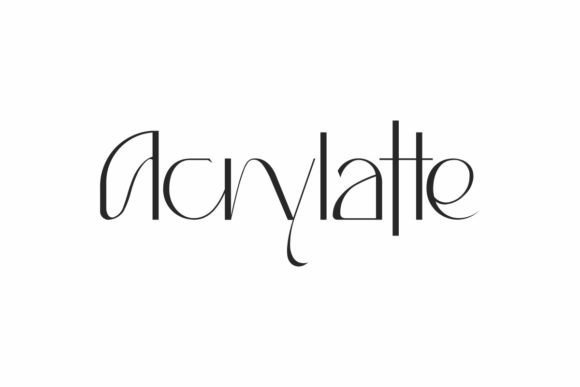
The Perfect Blend of Luxury and Legibility: Introducing Acrylatte Font
There’s something magical about stumbling upon the perfect font to bring your design to life. For me, it’s like the moment when all the puzzle pieces fall into place, and the creativity flows. You know that feeling when you’re about to create something truly special, and the right font is the missing piece of the equation? That’s exactly what happens when you discover Acrylatte Font, a modern display font that exudes luxury and sophistication.
Created by NihStudio, Acrylatte Font is designed to make a statement while still being easy to read. With its unique line wave and clean look, this font is perfect for a wide range of industries, from boutique and cosmetic to fashion and restaurant. Whether you’re designing a brand logo, magazine catalog, or product packaging, Acrylatte Font is sure to elevate your project to the next level.
Acrylatte Font Key Features
- Font Family: Acrylatte Font comes in a single font family, designed to provide a unique and modern look.
- Character Set: Includes a wide range of characters, including uppercase and lowercase letters, numbers, and special characters, making it suitable for various applications.
- Size: The font family includes multiple weights and styles, ranging from Extra Light to Extra Bold, allowing for flexibility in design and layout.
- Unique Characteristics: Acrylatte Font features a unique blend of geometric and organic shapes, giving it a distinctive and eye-catching appearance.
Designer Review: Acrylatte Font
Overall, I’m quite impressed with the Acrylatte font, but as with any design element, it’s not without its quirks. ✨ Here are some things that work well:
- The font’s unique, hand-drawn feel adds a touch of personality to any design project.
- Its open and airy structure makes it perfect for digital and print applications where legibility is key.
- The font’s flexibility in terms of font size and line height is a major plus, allowing designers to get creative with their layouts.
However, there are a few limitations that should be considered: ⚠️
- The font’s irregularity can sometimes make it difficult to read, especially in smaller font sizes.
- The font’s lack of a bold weight option can limit its use in certain design situations.
- The font’s open structure can make it difficult to use in situations where a more condensed font is required.
Overall, I’d give the Acrylatte font 4 out of 5 stars. It’s a unique and versatile font that can add a lot of character to a design project, but it’s not without its limitations. With a bit of careful consideration and planning, the Acrylatte font can be a valuable addition to any designer’s toolkit.
Acrylatte Font is commonly used in:
- Print and digital advertising.
- Web design and development.